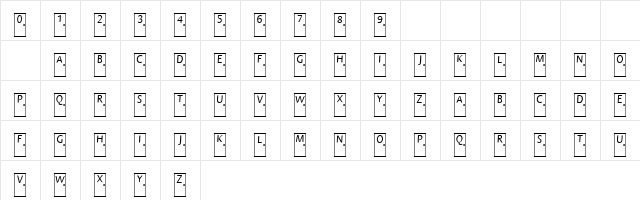
101! I Choose Door Number... Regular
Design Context for 101! I Choose Door Number... Typeface
101! I Choose Door Number... is a composed and adaptable typeface that performs quietly and consistently across a wide range of design contexts.